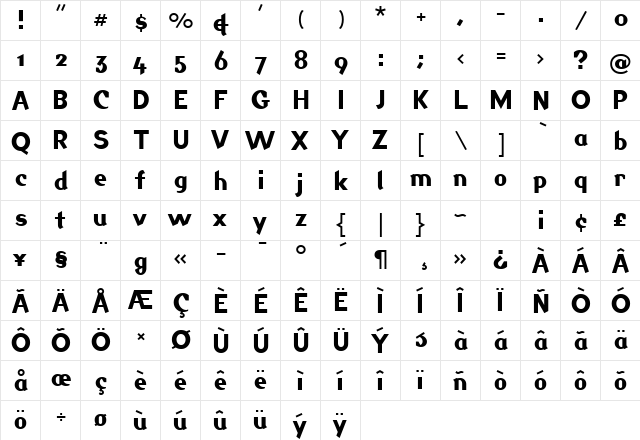
Jackdaw Regular
Design Context for Jackdaw Typeface
Jackdaw is a composed and adaptable typeface that performs quietly and consistently across a wide range of design contexts.